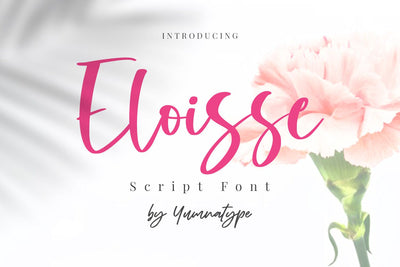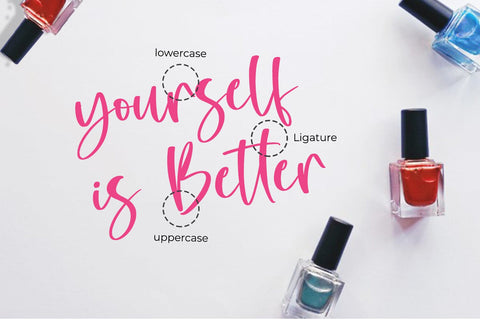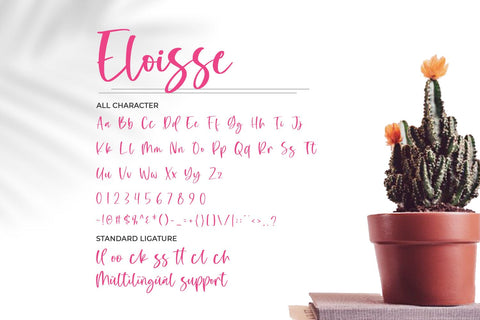
Eloisse-Elegant Handwritten Font
Eloisse is a elegant handwritten font. Made for any professional project branding. It is the best for logos, branding and quotes. Every letter has a unique and beautiful touch.
- Standard Ligatures